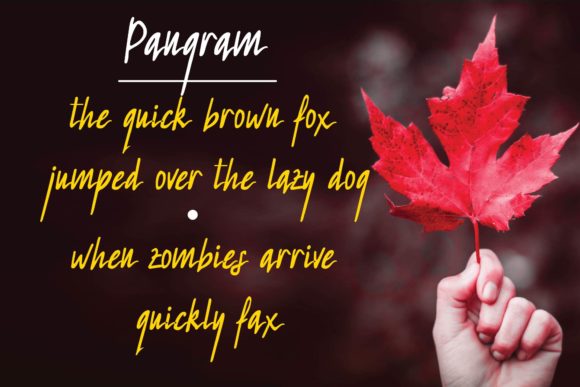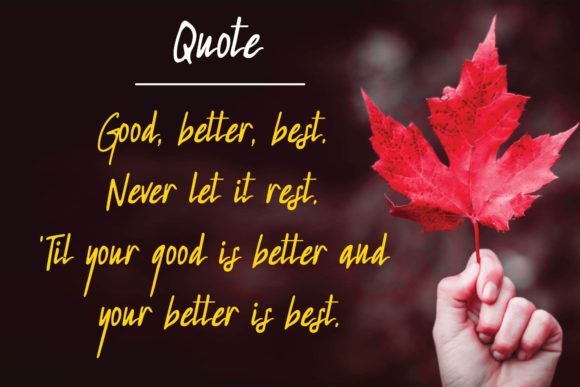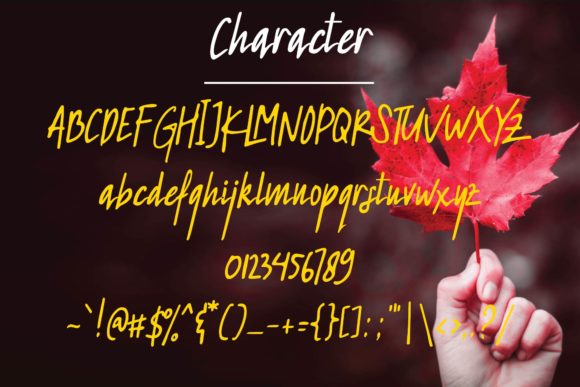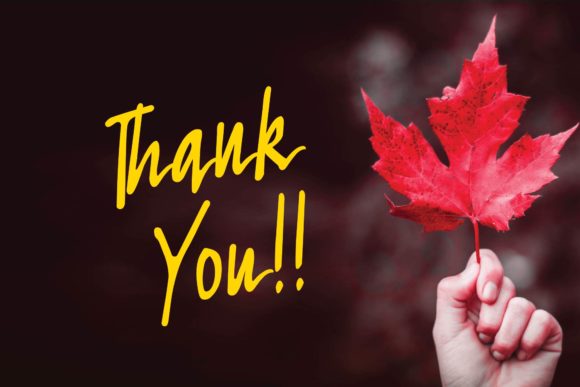
HomeScript FontsRedleaf Font Script Fonts Redleaf Font FacebookXPinterestWhatsApp Redleaf Font Poster 2 Redleaf Font Poster 3 Redleaf Font Poster 4 Redleaf Font Poster 5 About Redleaf Font Redleaf is a fresh and funky script with an authentic spark! DOWNLOAD ON CREATIVE FABRICAThis font is sold and delivered by Creative Fabrica. Font Canyon may earn a commission if you buy through this link. People also explored Arinda & Karina Duo Font Voyntea Font Black Smith Font Dream Town Font Goresant Script Font Natalia Script Font Kathyna Script Font Thrive Font Bright Violet Font 374 0 TagsRedleaf Font Previous articleMisthique FontNext articleSphinxes Font LEAVE A REPLY Cancel reply Comment: Please enter your comment! Name:* Please enter your name here Email:* You have entered an incorrect email address! Please enter your email address here Website: Save my name, email, and website in this browser for the next time I comment. Personal Use Free Aragon Personal Use Free Read more about this font Tomatoes Personal Use Free Read more about this font Borg Personal Use Free Read more about this font Rookie Mastering Personal Use Free Read more about this font BLOG How to Cut Any Font on Cricut: Convert a Font to SVG (Free) Turn any font into a clean SVG so it cuts crisp on Cricut - a quick 3-step workflow using a free font-to-SVG tool. Fonts That Capture the Spirit of New York City The 10 Best Handwriting Fonts to Add Personality to Your Designs Elegant Wedding Invitation Fonts – Handwritten & Script Fonts